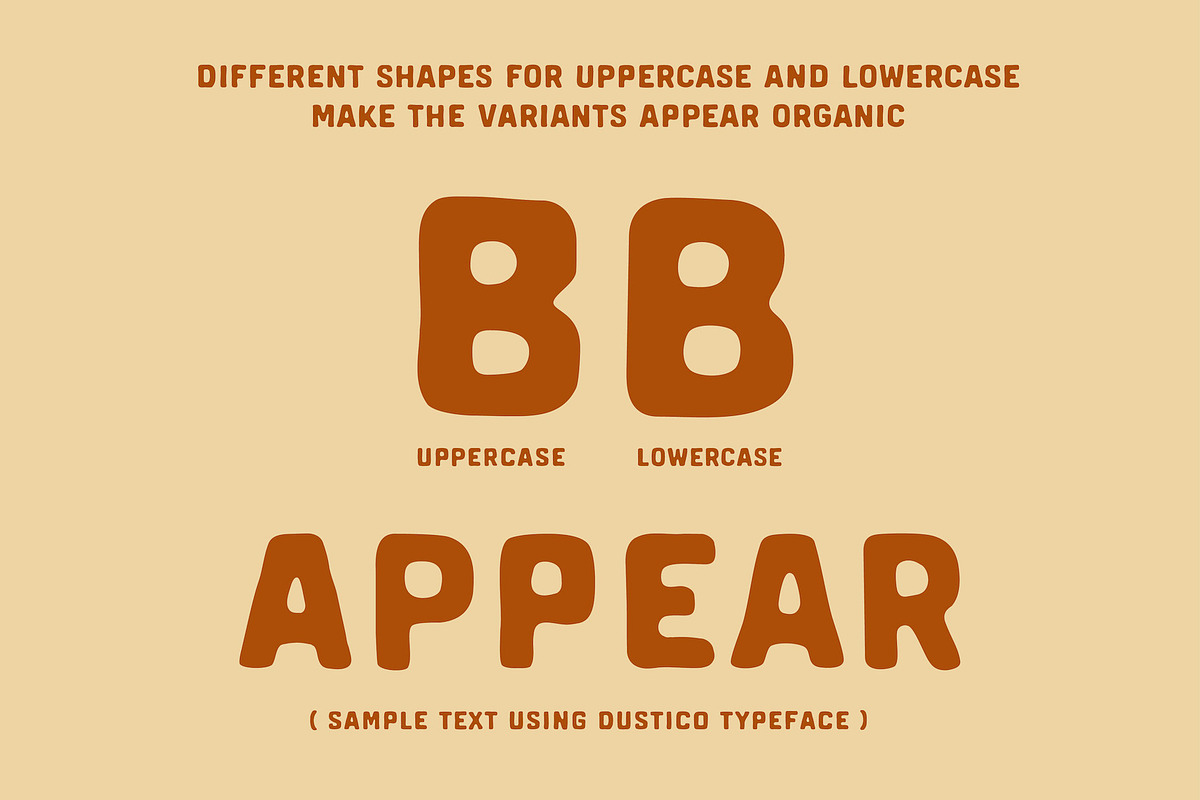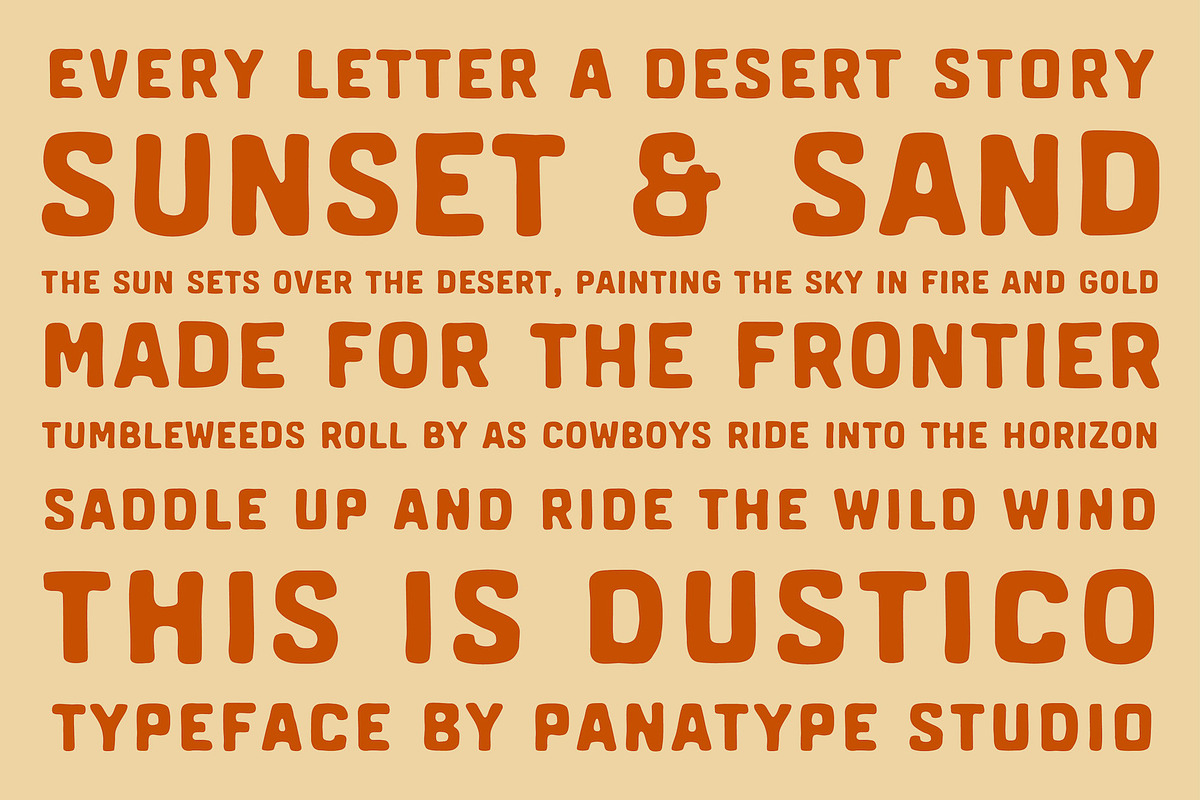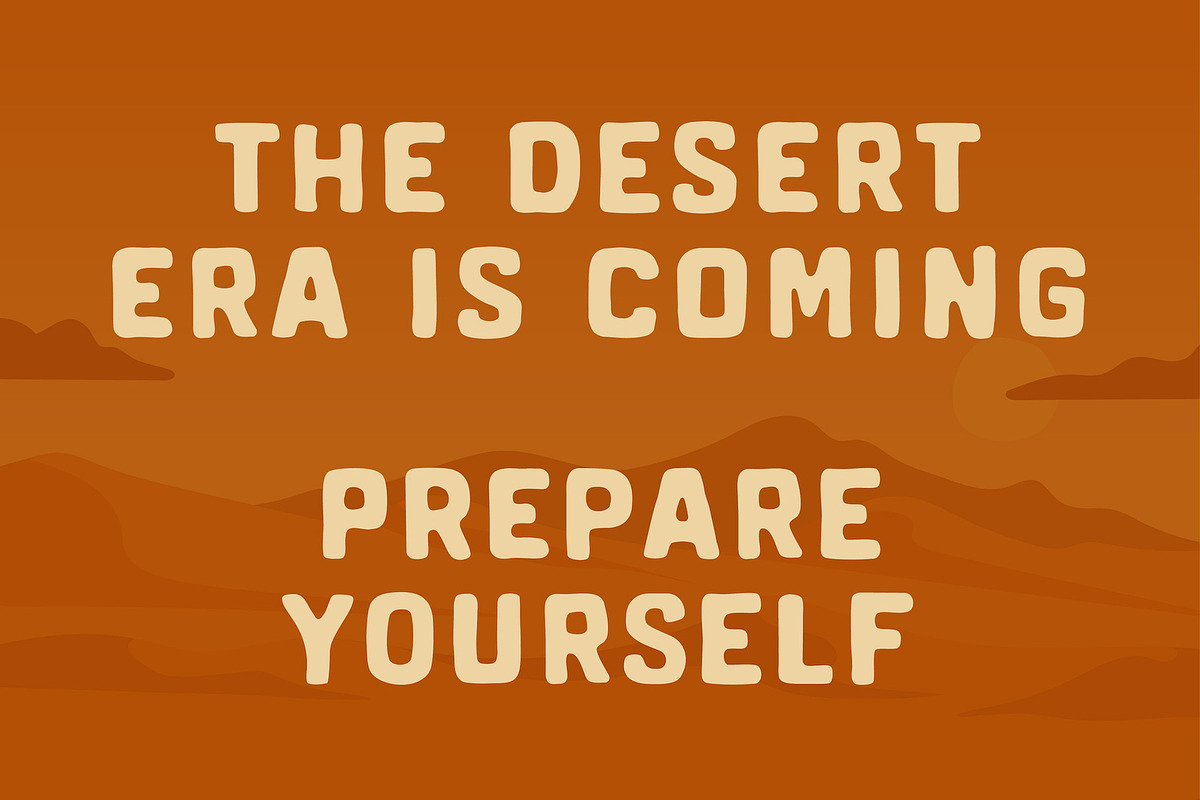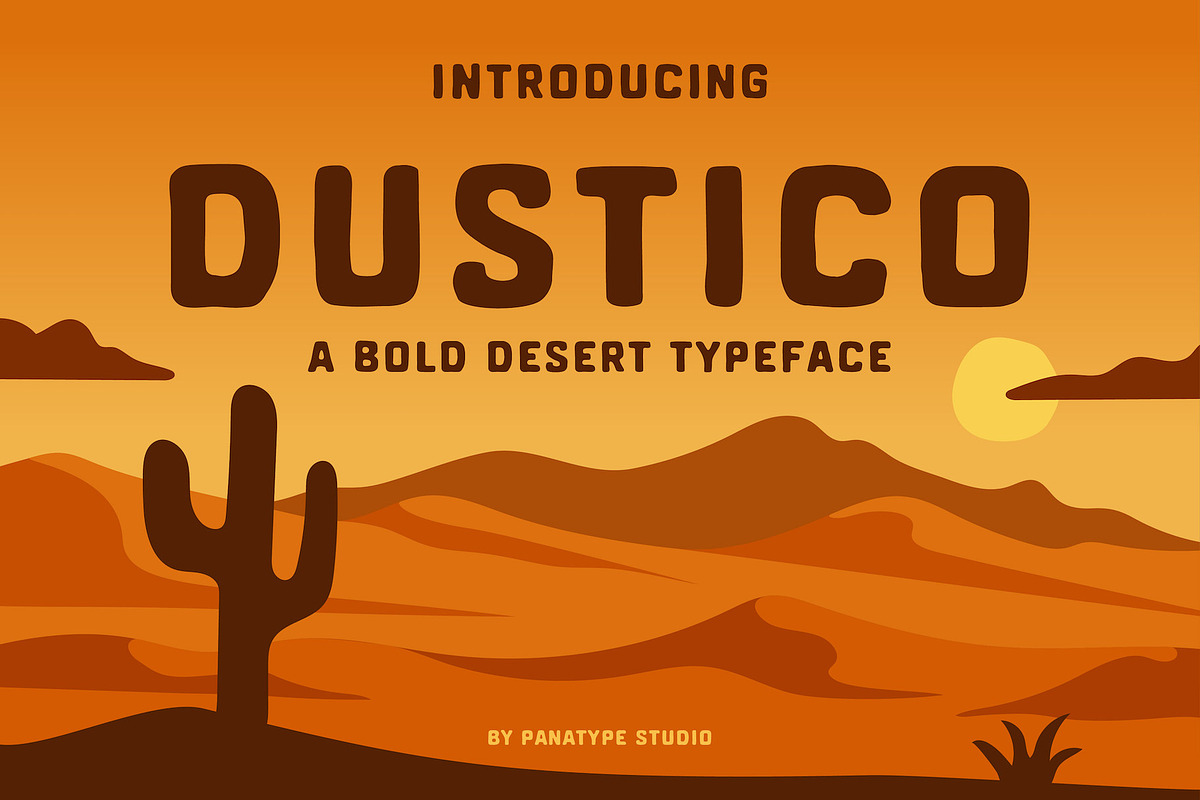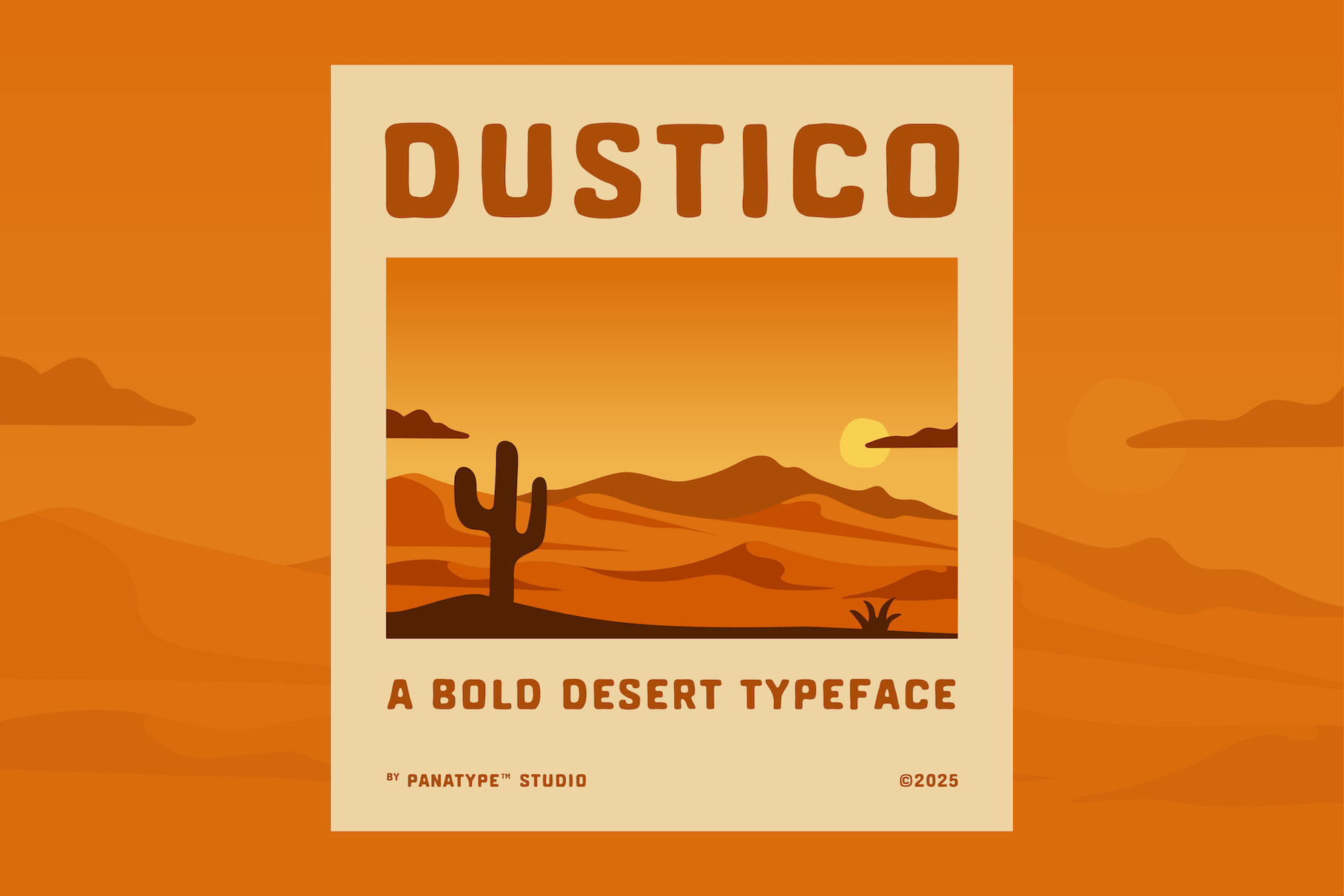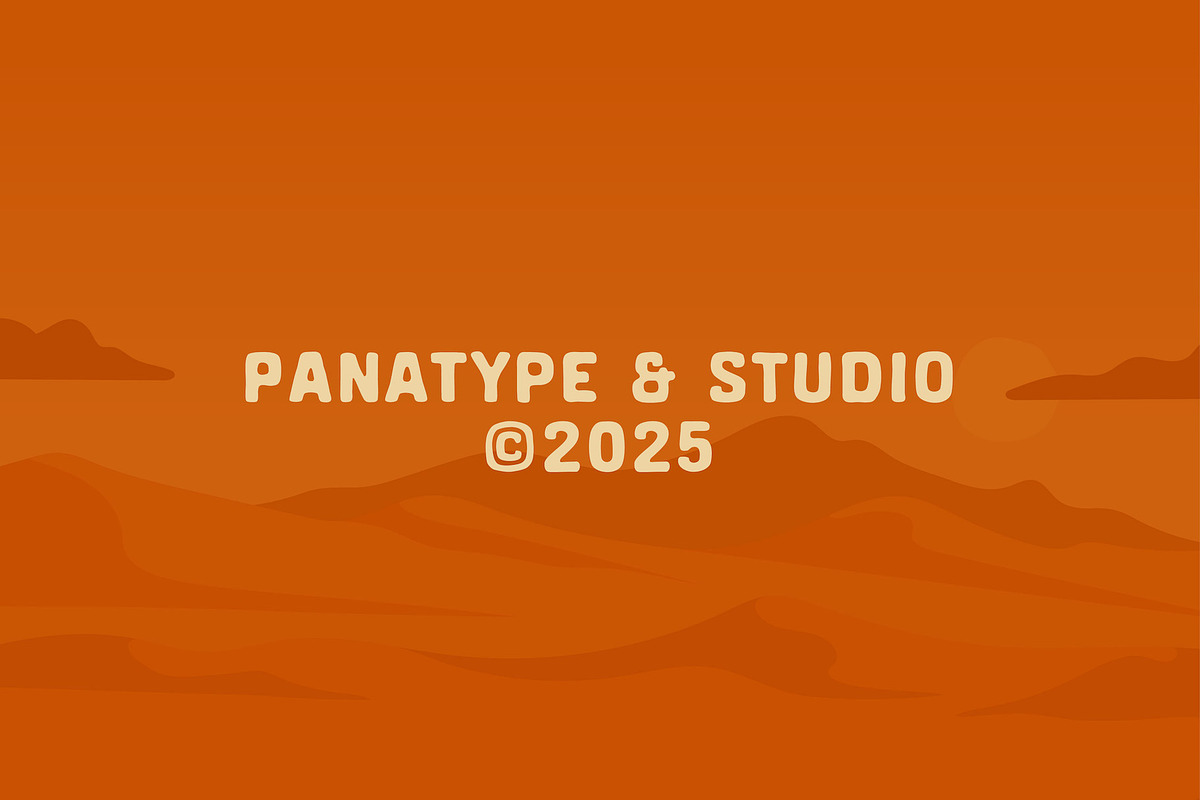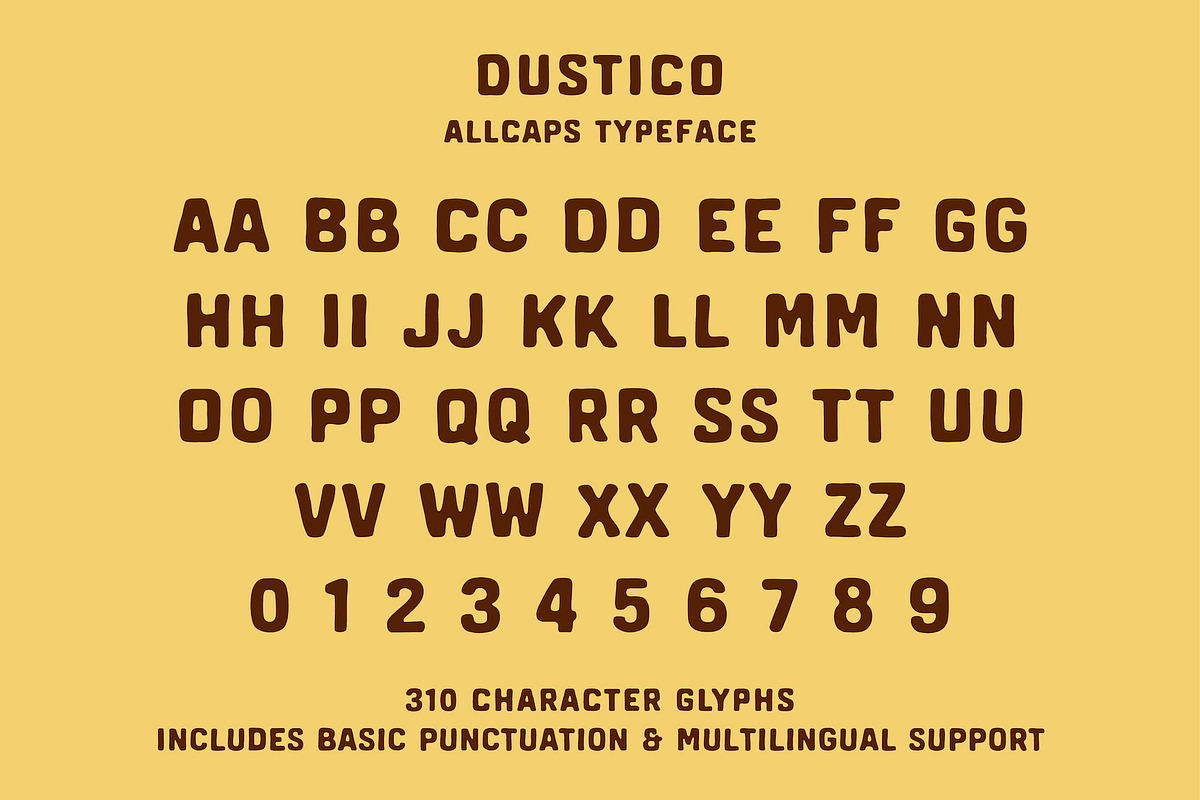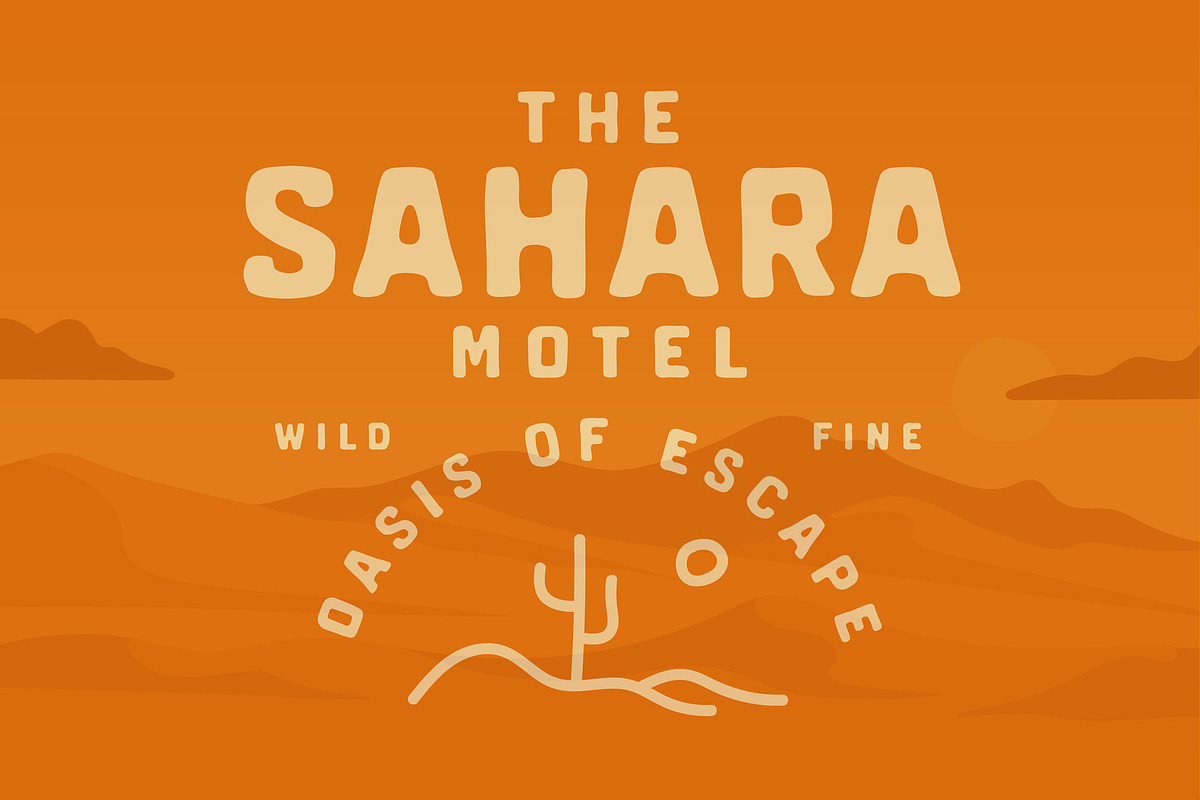
Dustico – A Bold Desert Typeface
Dustico – Bold Western Desert Font
Introducing Dustico, a bold and charismatic typeface inspired by the dusty trails, golden sunsets, and wild spirit of the desert west. With chunky, rounded forms and a soft yet rugged feel, Dustico brings playful confidence to your creative projects.
Whether you're designing for branding, vintage logos, posters, packaging, or western-themed graphics, Dustico adds a unique personality that stands out in both print and digital.
🔥 Font Features:
- All caps with smooth rounded edges
- Bold and friendly display style
- Great readability for headlines & logos
- Includes basic punctuation & multilingual support
✨ Perfect For:
- Western & desert-themed designs
- Retro-style branding
- Apparel, stickers, & signage
- Editorial titles and posters
- Children's products with a bold twist
Saddle up and ride the creative frontier with Dustico – where the wild west meets modern design.